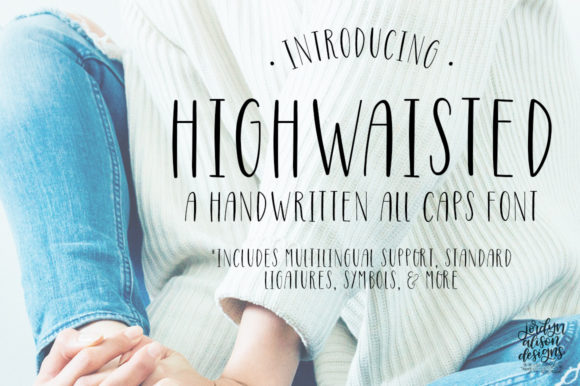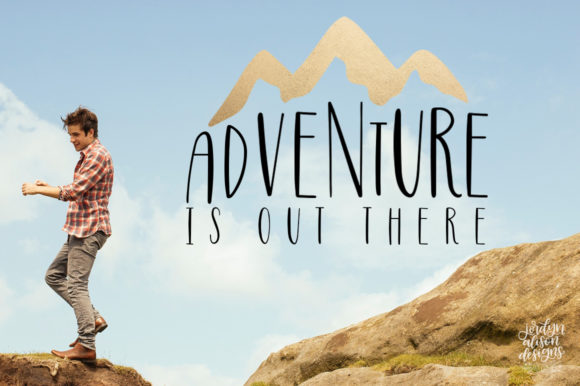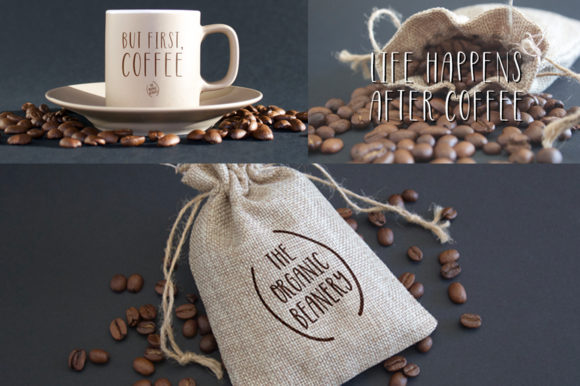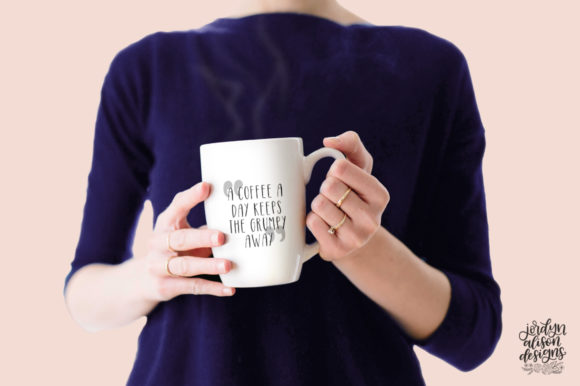
Highwaisted Font
About the Highwaisted Font
The wait is over! The incredible Highwaisted Font is now available for your design toolkit. The Highwaisted is a brand new hand-lettered all caps font!
Highwaisted’s bold, playful energy makes it ideal for headlines, short taglines, and branding applications where a strong visual statement is needed. It works exceptionally well on packaging, posters, and social media graphics. However, its all-caps nature and hand-lettered style make it less suitable for body text or UI elements requiring high readability. Avoid using it for long paragraphs or complex layouts.
Pairing Highwaisted with a clean sans-serif like Montserrat or a more geometric font such as Futura provides a striking contrast and enhances legibility. For a softer touch, consider pairing it with a delicate script font, but use it sparingly to avoid visual clutter. The contrast will highlight Highwaisted’s unique character.
Its overall personality is best described as bold and expressive, conveying a sense of fun and confidence. Brands aiming for a youthful, energetic image will find Highwaisted a strong asset.
Highwaisted Font Usage Examples
Highwaisted Font Example